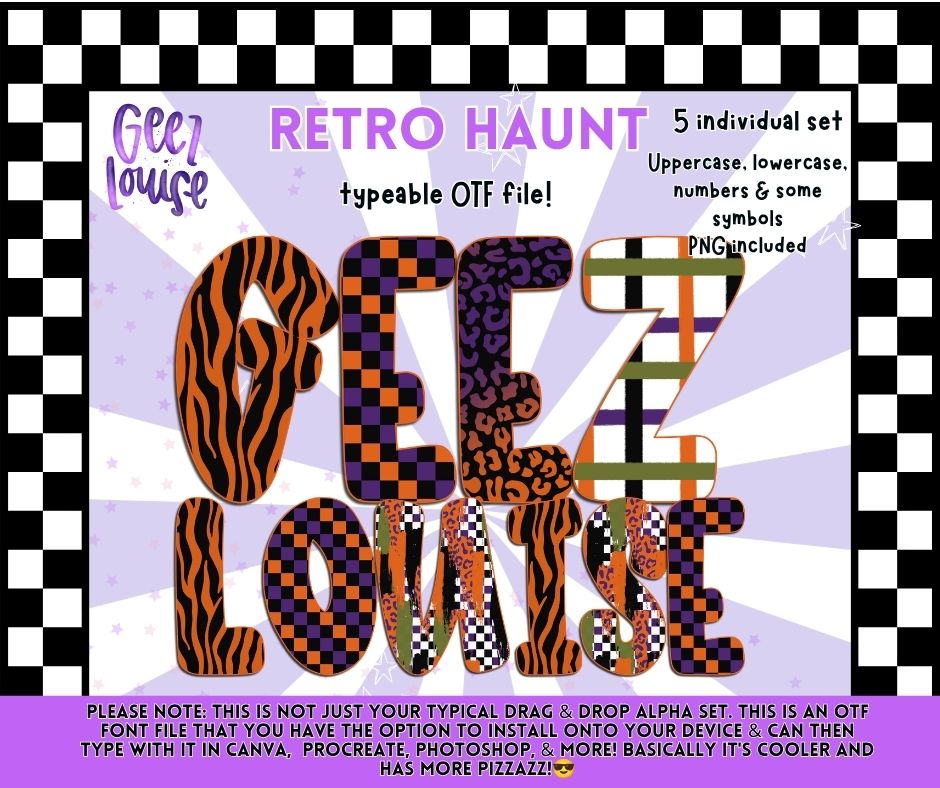
Retro Haunt OTF Font | Halloween Pattern Alphabet | Typeable Font & PNG Alpha Set
πŸŽƒπŸ‘» Create spooky season designs with a nostalgic twist using Retro Haunt! This Halloween-inspired typeable OTF font includes five coordinating pattern styles featuring vintage Halloween colors, checkers, leopard, zebra, and retro plaid details. Perfect for makers who love bold, trendy spooky vibes.
• 5 Individual Pattern Alphabet Sets
• Uppercase Letters
• Lowercase Letters
• Numbers
• Some Symbols